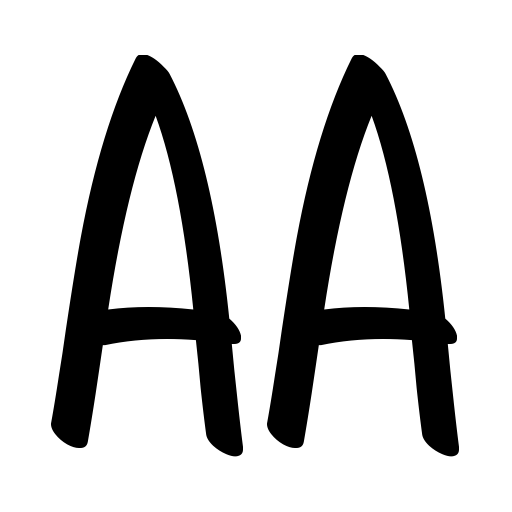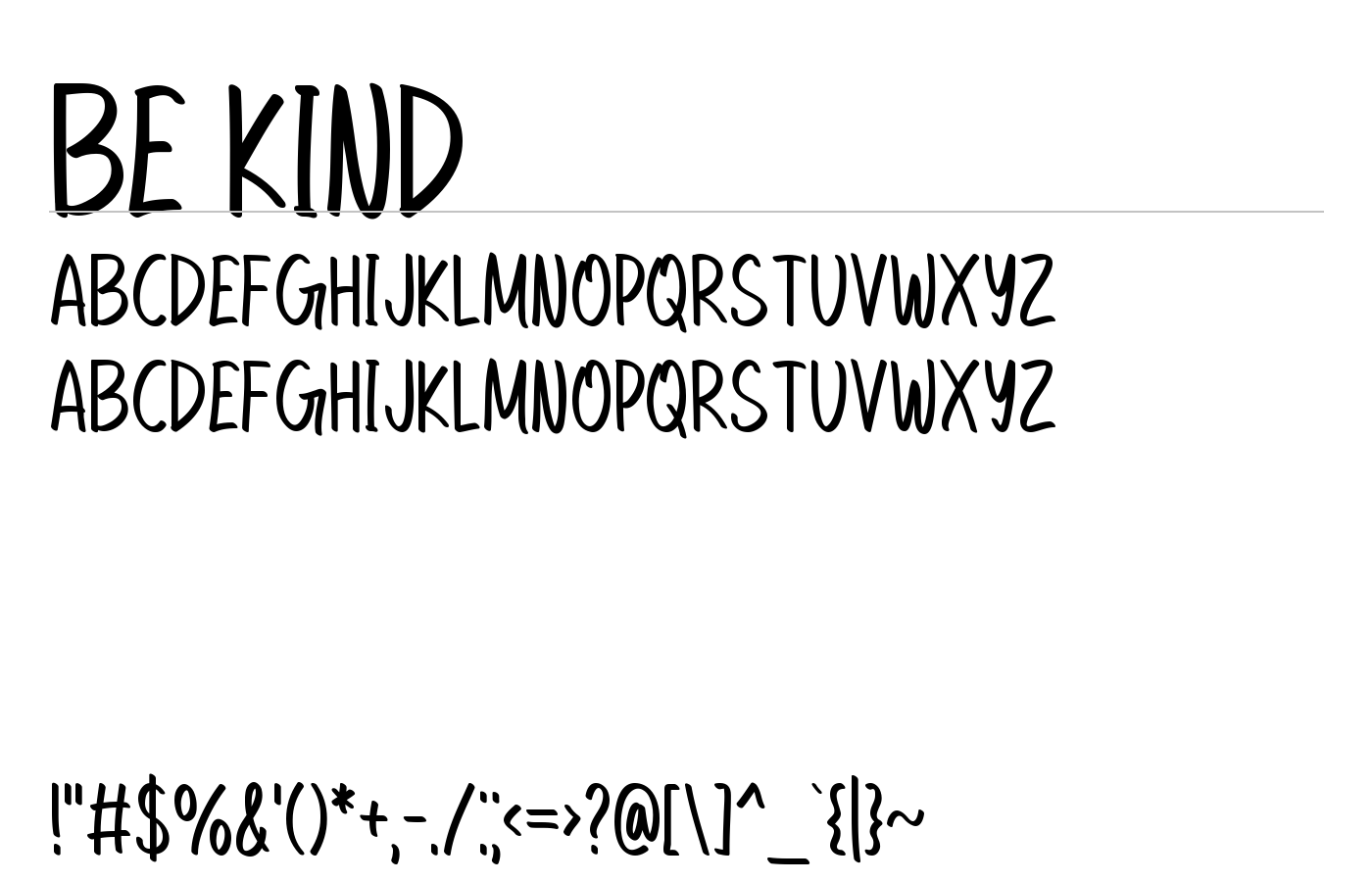
Be Kind is a playful, hand-drawn sans serif font with tall, narrow letterforms and a casual, friendly vibe. Its irregular strokes and lively shapes make it perfect for informal design projects, such as greeting cards, children’s books, or social media graphics, where a warm, approachable tone is desired. This font is best suited for headlines and display text that benefit from a personal, handcrafted feel.
Be Kind Font